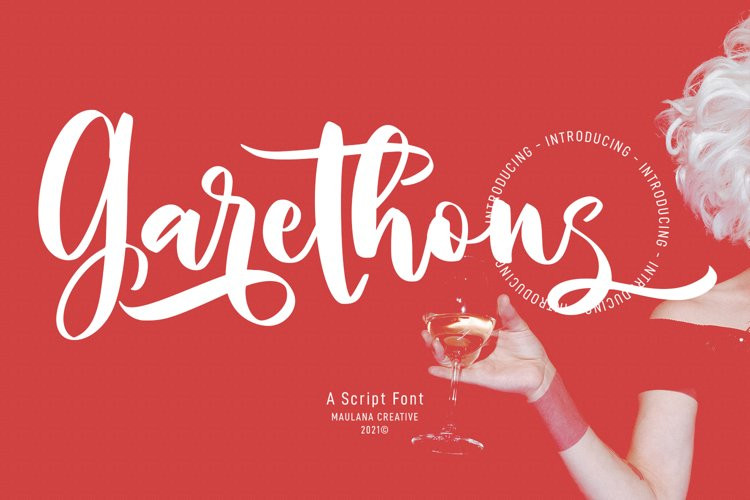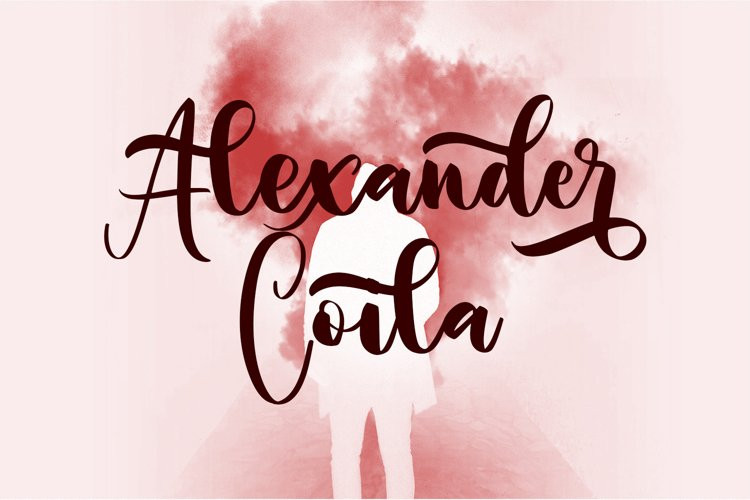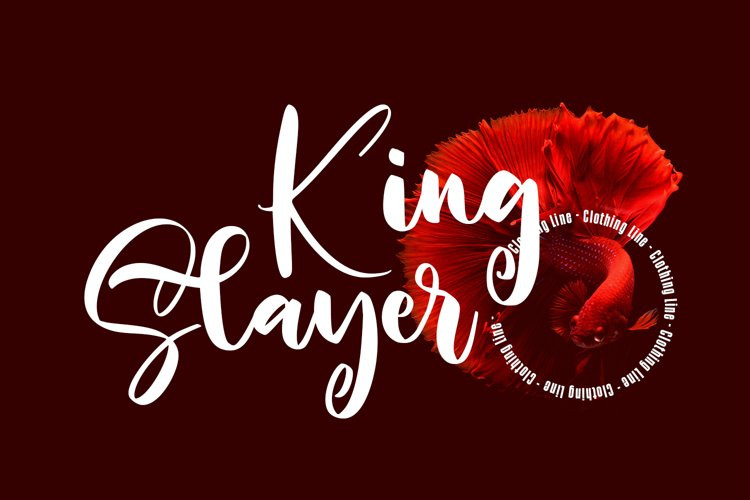
Garethons Font
Garethons is a Script font. With Bold Contrast stroke, fun character with a bit of ligatures and lowercase alternate access. To give you an extra creative work. Garethons font support multilingual more than 100+ language. This font is good for logo design, Social media, Movie Titles, Books Titles, a short text even a long text letter and good for your secondary text font with sans or serif. Make a stunning work with Garethons font.